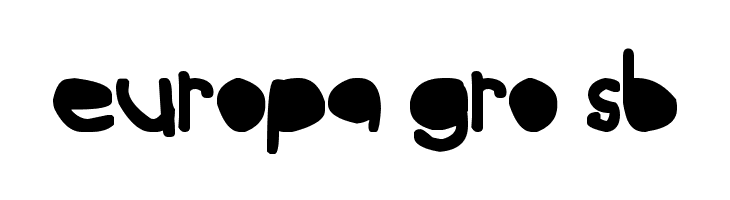
( Pizzadude - Jakob Fischer - www.pizzadude.dk/ )
A playful, hand-drawn font with a quirky and artistic style.
( fontstruct.fontshop.com/fontstructors/neoqueto )
A futuristic, segmented font with a digital and geometric style.
( Chandan Acharja - www.charuchandan.com )
A clean, modern sans-serif font with consistent stroke width and excellent readability.
A bold, slab serif font with a vintage yet modern appeal.
( dcoxy - Greg Medina - www.dcoxy.com/ )
A dynamic and elegant script font with fluid, connected letterforms.
A flowing, cursive script font with elegant, connected strokes.
An elegant, flowing script font with classic calligraphic elements.
A graceful, cursive script font with fluid, continuous strokes.
( Fonts by appajid )
A modern, geometric sans-serif font with a clean and bold appearance.
( Fonts by appajid )
A modern, geometric sans-serif font with a clean and balanced design.
( Fonts by appajid )
A modern, geometric sans-serif font with a sleek and elongated appearance.
( Fonts by appajid )
A modern, geometric sans-serif font with narrow, elongated characters.
( Fonts by appajid )
A sleek, modern font with a thin, linear structure and uniform spacing.
A modern, geometric sans-serif font with clean lines and a bold presence.